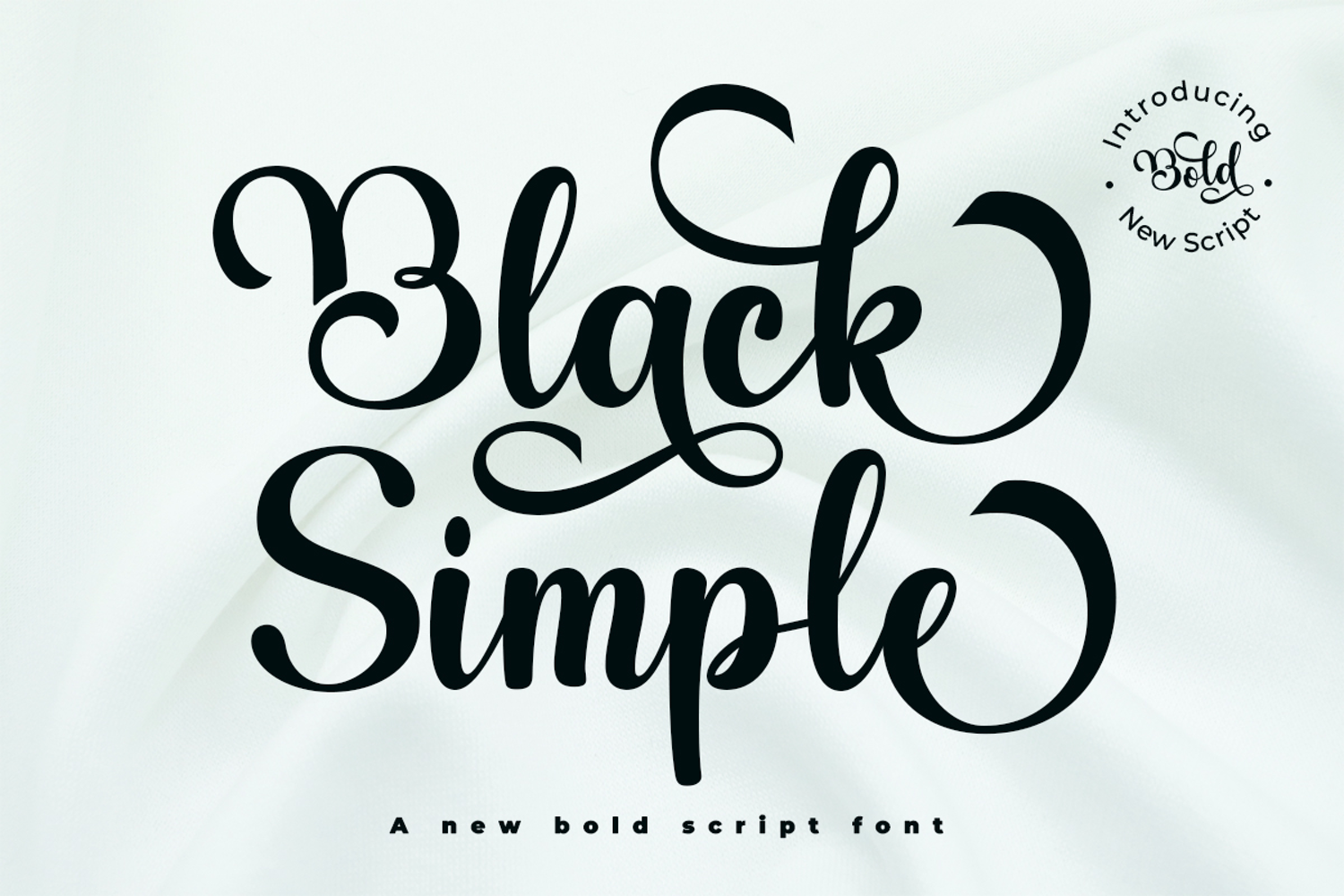
Black Simple Script
Black Simple
Black Simple is a bold script font that effortlessly blends elegance and charm. Featuring thick, flowing letterforms and decorative swashes, this typeface brings a handcrafted feel to any design. Its playful curves and smooth connections make it ideal for branding, invitations, logos, packaging, and other creative projects. With a perfect balance between sophistication and readability, Black Simple is the go-to choice for designs that aim to stand out with personality and flair.